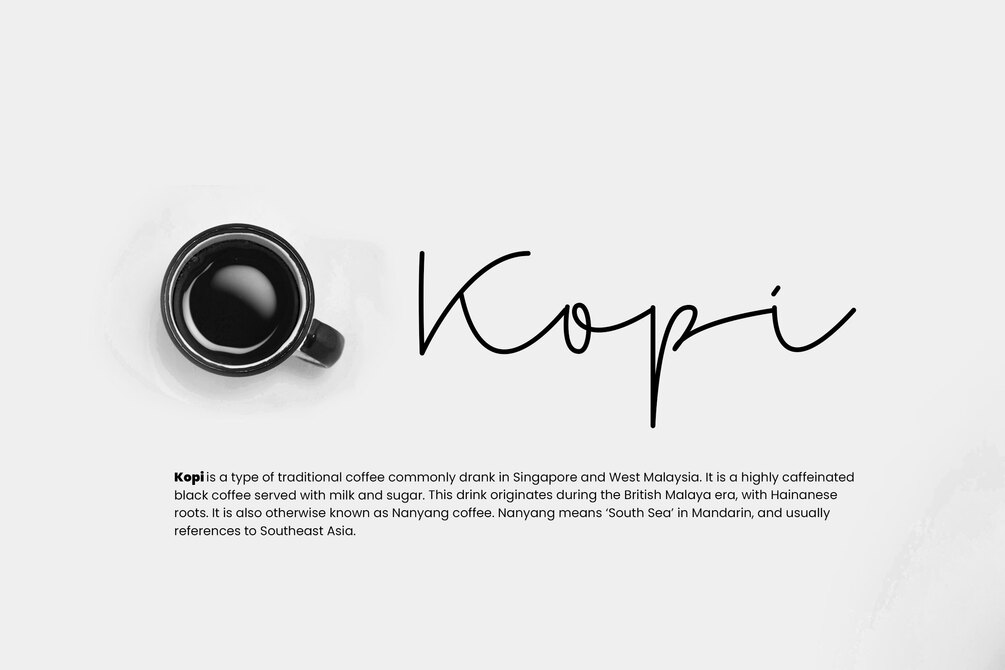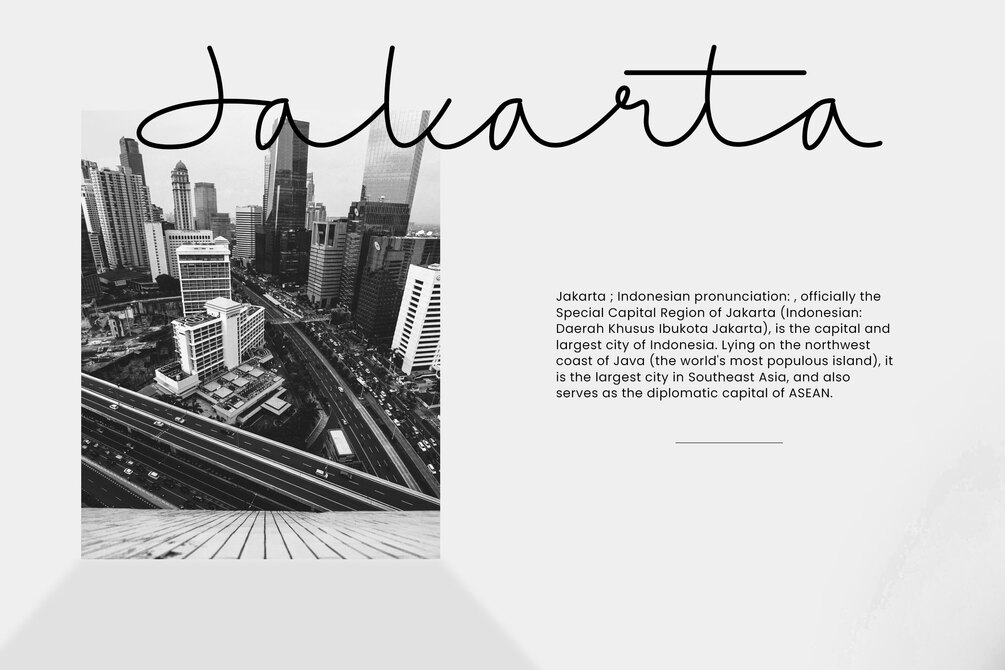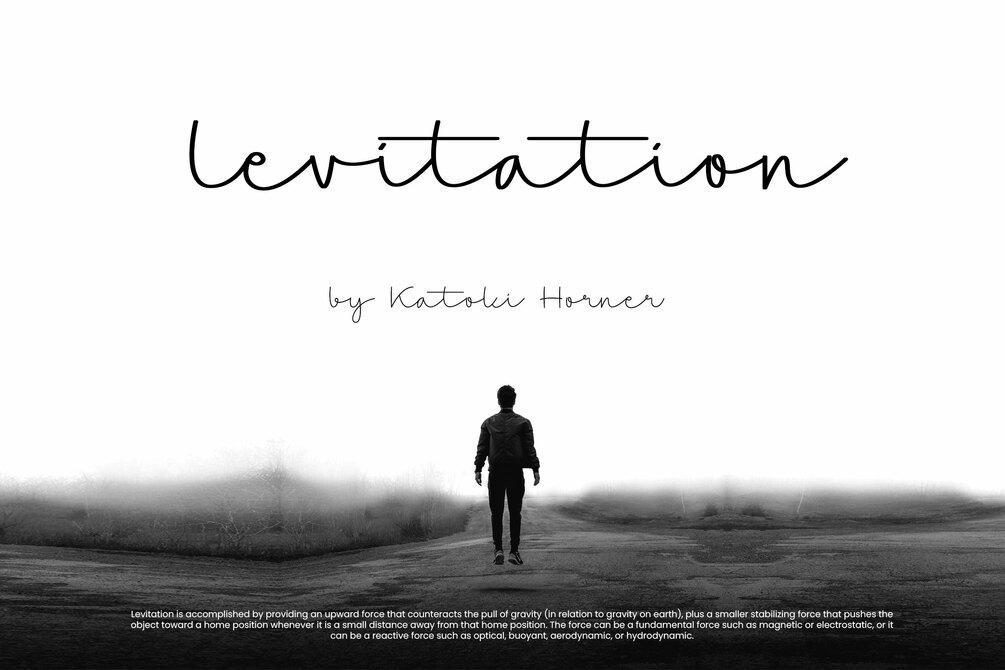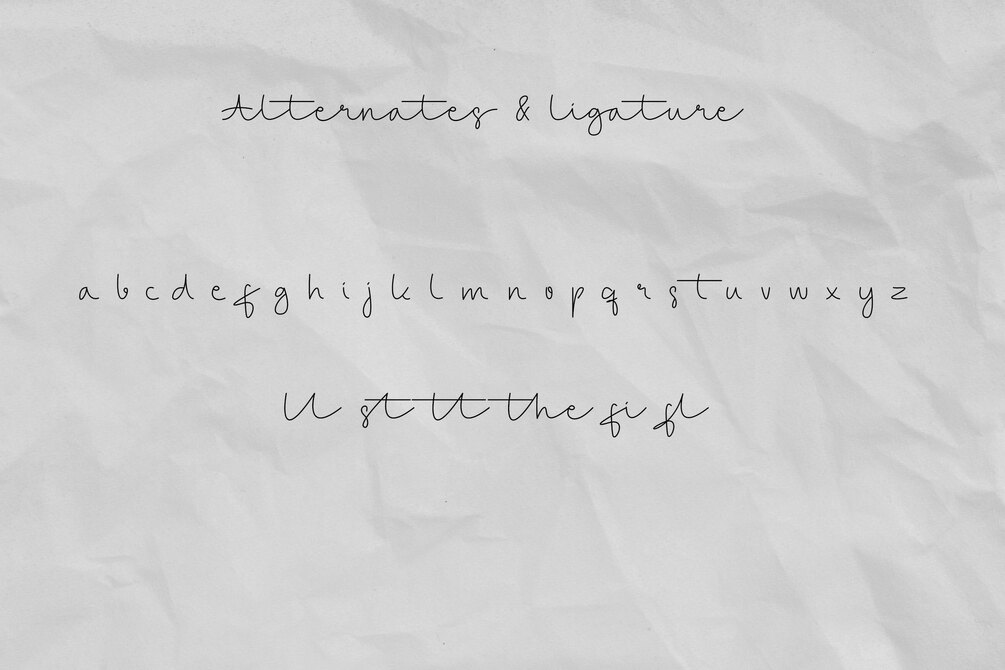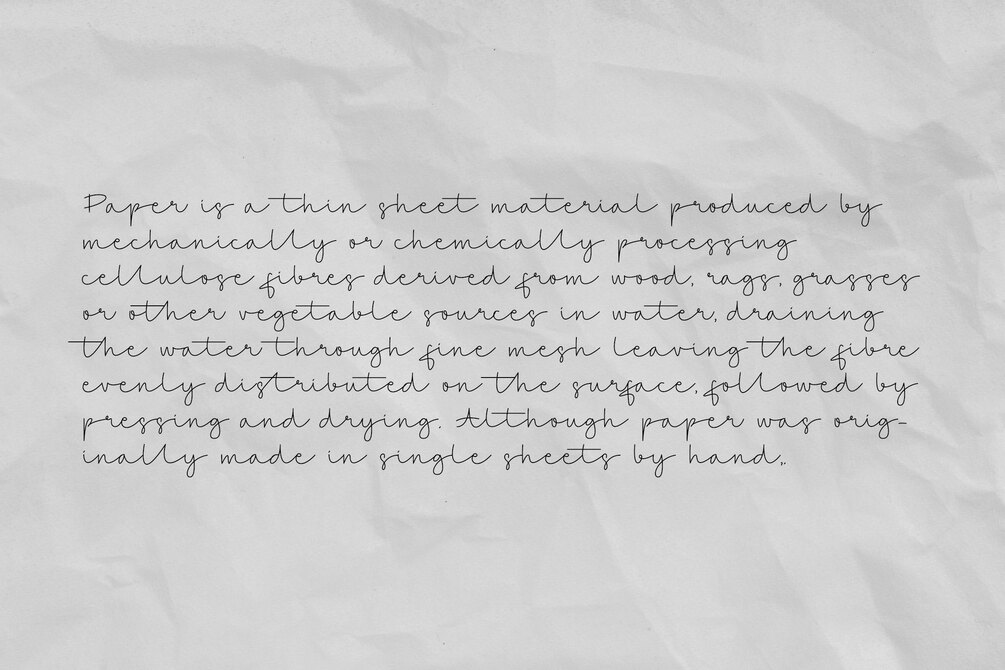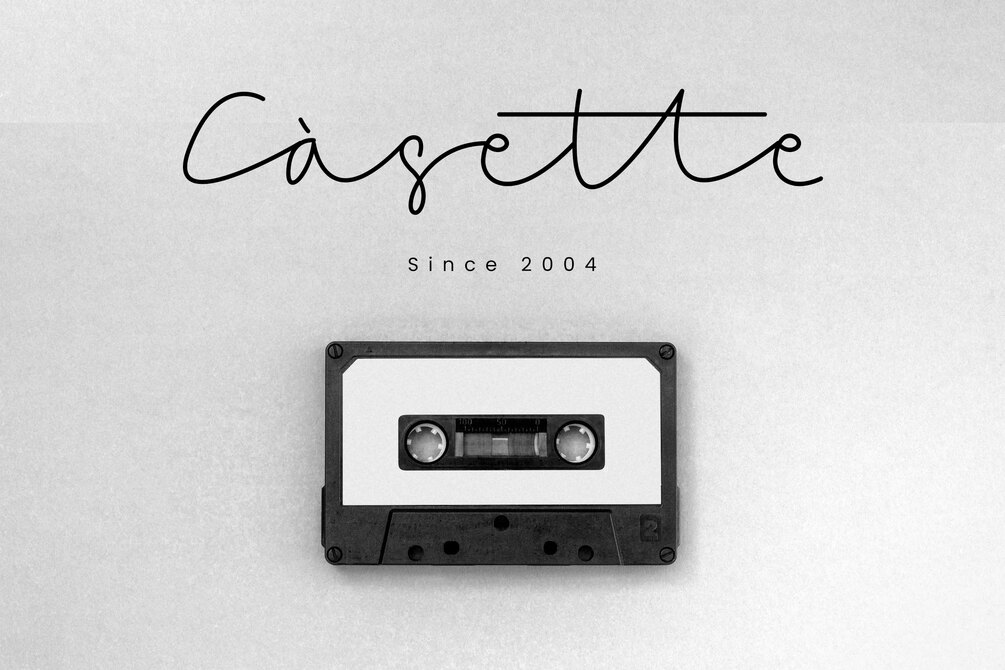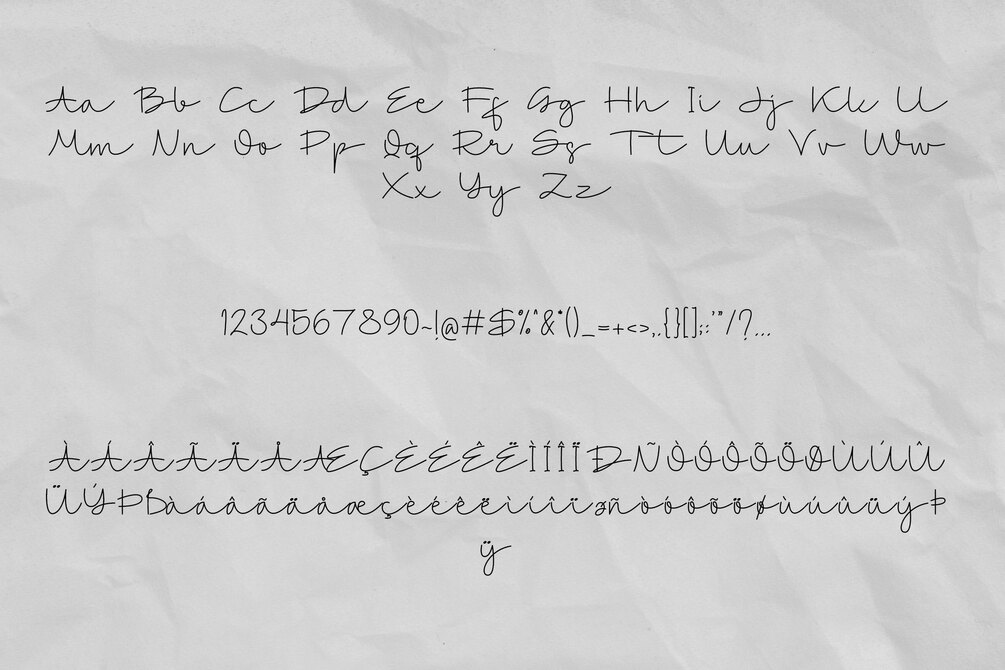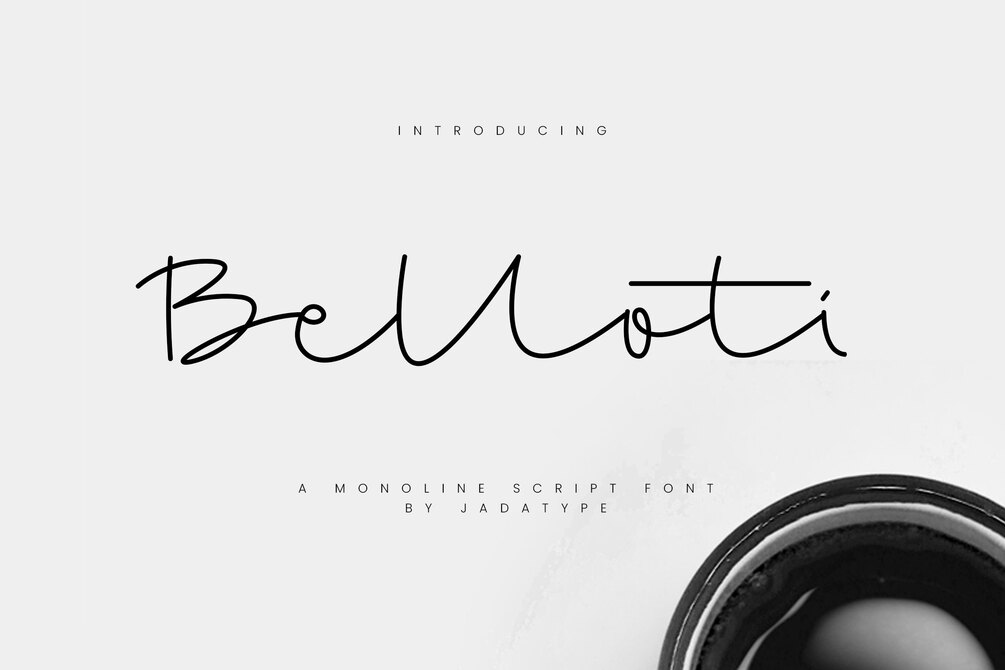
Belloti Font
Belloti is an script font that comes with an elegant single line style. suitable for product, Branding, social media, logotype and so on. contains standard English letters, numbers, punctuation, and several accents that support multilingualism.